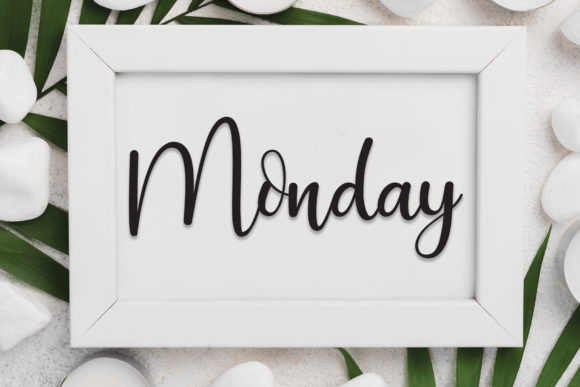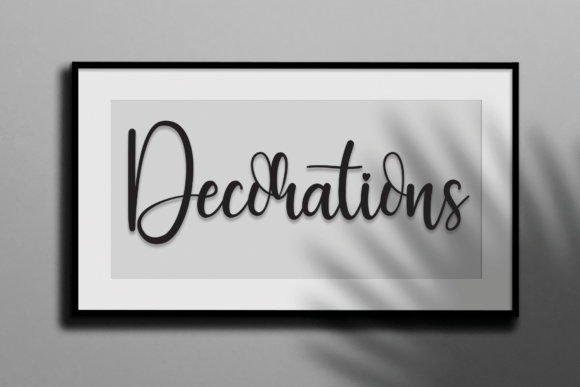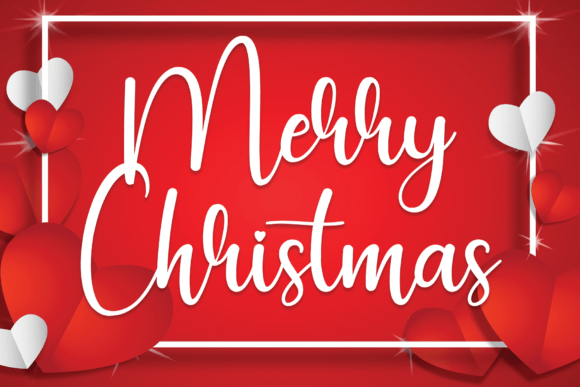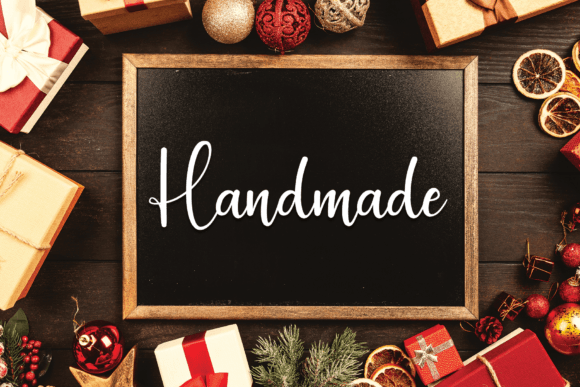
Discover the Charm of Black Pastel Font: A Fun and Friendly Handwritten Font
Are you tired of using the same old fonts for your crafts, digital designs, presentations, and greeting cards? Look no further than the Black Pastel Font, a delightful handwritten font that’s sure to become your new favorite. With its fun and friendly vibe, this font is perfect for adding a personal touch to any project.
What is Black Pastel Font?
Black Pastel Font is a unique and charming handwritten font that’s designed to bring a smile to your face. Its soft, pastel-like quality makes it perfect for a wide range of applications, from crafting and scrapbooking to digital design and presentations. Whether you’re creating a birthday card, a blog post, or a social media graphic, this font is sure to add a touch of whimsy and personality to your work.
Why Choose Black Pastel Font?
So why choose Black Pastel Font over other fonts? For starters, its handwritten quality gives it a warm and approachable feel that’s hard to replicate with more formal fonts. Additionally, its versatility makes it suitable for a wide range of projects, from formal presentations to casual crafts. Here are just a few reasons why Black Pastel Font is a great choice:
- Unique and eye-catching: Black Pastel Font is a one-of-a-kind font that’s sure to grab attention and make your work stand out.
- Easy to read: Despite its playful quality, Black Pastel Font is surprisingly easy to read, making it perfect for longer texts and paragraphs.
- Versatile: Whether you’re creating a digital design, a craft project, or a presentation, Black Pastel Font is a great choice.
- Fun and friendly: This font has a lighthearted and approachable quality that’s perfect for adding a personal touch to your work.
Uses for Black Pastel Font
So what can you use Black Pastel Font for? The possibilities are endless! Here are a few ideas to get you started:
- Crafts: Use Black Pastel Font to add a personal touch to your scrapbooking, card making, and other craft projects.
- Digital design: This font is perfect for creating social media graphics, blog posts, and other digital content.
- Presentations: Add a touch of personality to your presentations and slideshows with Black Pastel Font.
- Greeting cards: Create one-of-a-kind greeting cards for birthdays, holidays, and other special occasions.
Tips for Using Black Pastel Font
Here are a few tips for getting the most out of Black Pastel Font:
- Experiment with colors: Black Pastel Font looks great in a range of colors, so don’t be afraid to experiment and find the perfect shade for your project.
- Mix and match: Combine Black Pastel Font with other fonts and graphics to create a unique and eye-catching design.
- Keep it simple: Don’t overcomplicate your design – sometimes, the simplest approach is the most effective.
In conclusion, Black Pastel Font is a fun and friendly handwritten font that’s perfect for adding a personal touch to your crafts, digital designs, presentations, and greeting cards. With its unique and eye-catching quality, ease of use, and versatility, this font is sure to become your new favorite. So why not give it a try and see what amazing projects you can create?